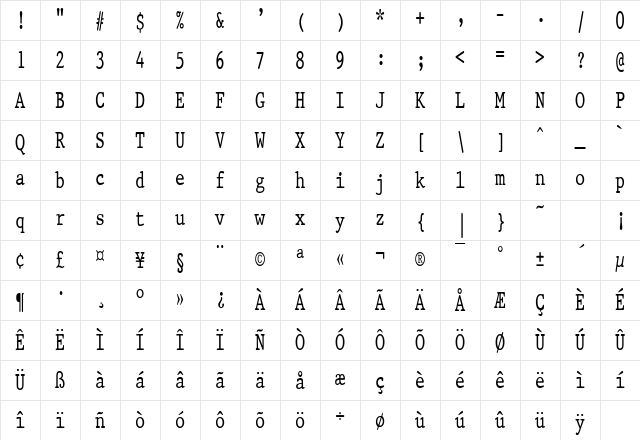
PrestigeCondensed Regular Free Font
PrestigeCondensed Regular
Design Context for PrestigeCondensed
PrestigeCondensed is a composed and adaptable typeface that performs quietly and consistently across a wide range of design contexts. Its narrow stance lets it pack a punch even in space-constrained designs.